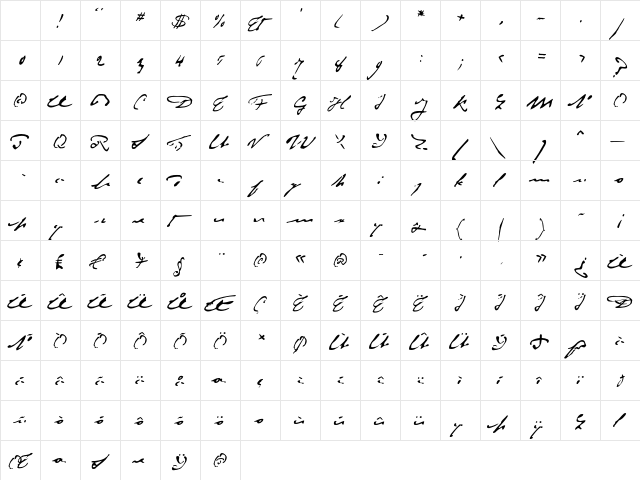
Complete P22Monet Impressionist glyph index. Displaying only characters natively supported by P22Monet Impressionist font.
P22Monet is a composed and adaptable typeface that performs quietly and consistently across a wide range of design contexts.